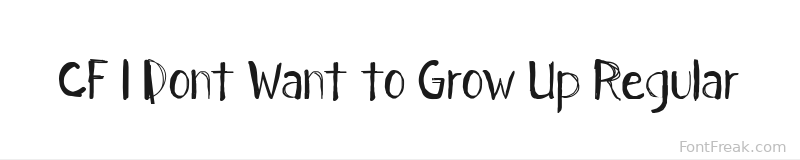
CF I Dont Want to Grow Up Regular
About CF I Dont Want to Grow Up Regular
CF I Dont Want to Grow Up Regular is a whimsical display font that captures the essence of youthful exuberance and playful nostalgia. Designed by Cloutierfontes in 2015, this font features a unique handwritten style, characterized by its irregular letterforms that convey a sense of spontaneity and charm. The stroke weight varies throughout, giving it a dynamic visual appeal while maintaining legibility. The spacing is slightly loose, enhancing readability and allowing for comfortable text flow. Decorative elements like playful curves and exaggerated features add to its whimsical nature, making it ideal for creative projects.
This font is particularly well-suited for a variety of applications. It shines in children’s book covers, where the lighthearted aesthetic can engage young readers. Additionally, it works beautifully for party invitations, bringing a sense of fun and excitement to any celebration. Restaurant menus targeting a casual dining experience can also benefit from its approachable vibe, making the menu feel more inviting. Furthermore, graphic designers can utilize this font in social media posts aimed at a youthful audience, ensuring that the content stands out amidst the noise of digital platforms.
Targeting graphic designers, small business owners, and content creators, CF I Dont Want to Grow Up Regular font free download offers an accessible option for those looking to inject a sense of joy and creativity into their work. Its unique style and versatility make it a valuable addition to any designer's toolkit. The font stands out not only for its playful appearance but also for its ability to evoke emotions and memories associated with childhood, making it a perfect choice for projects that aim to resonate on a personal level.